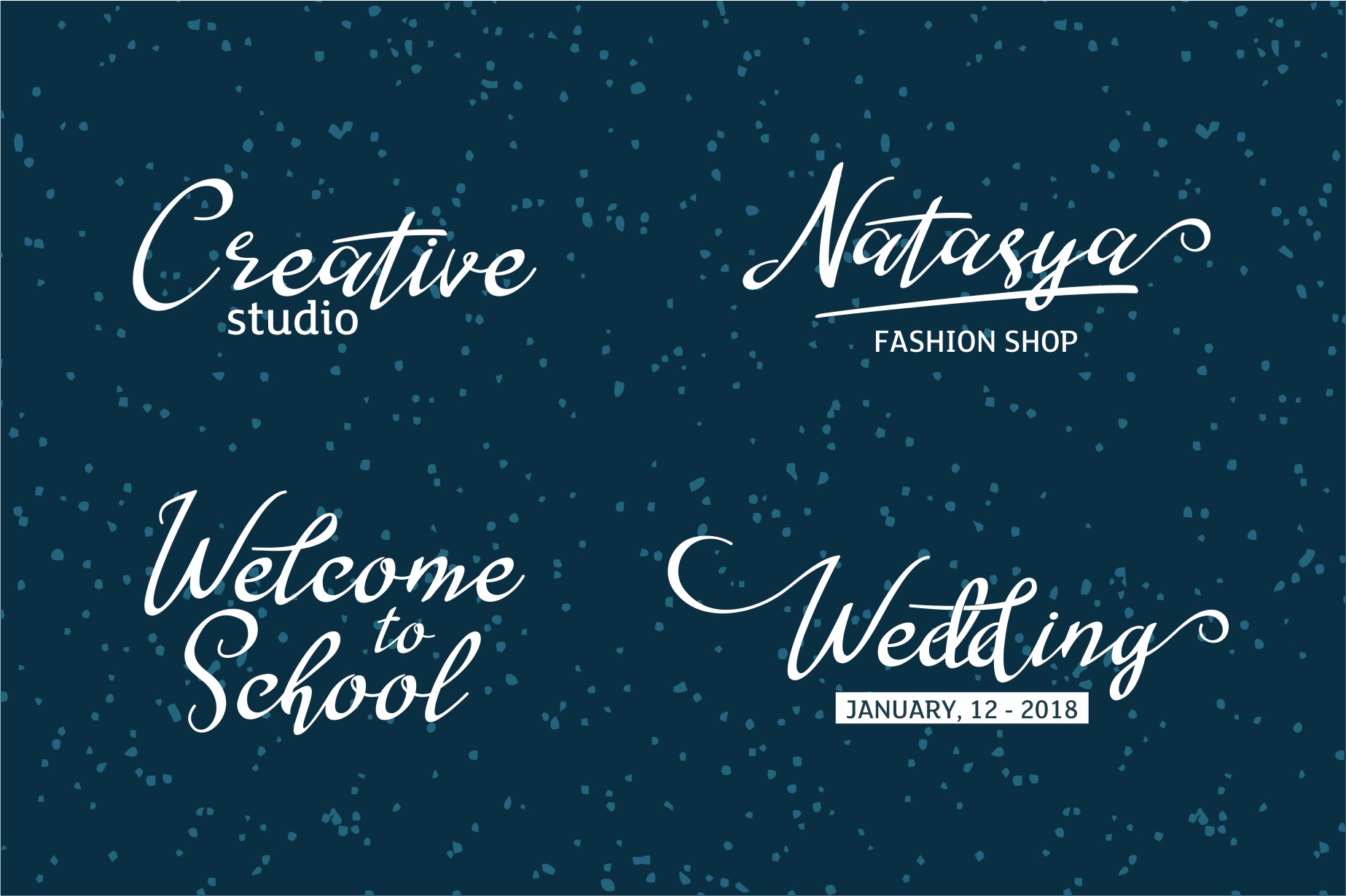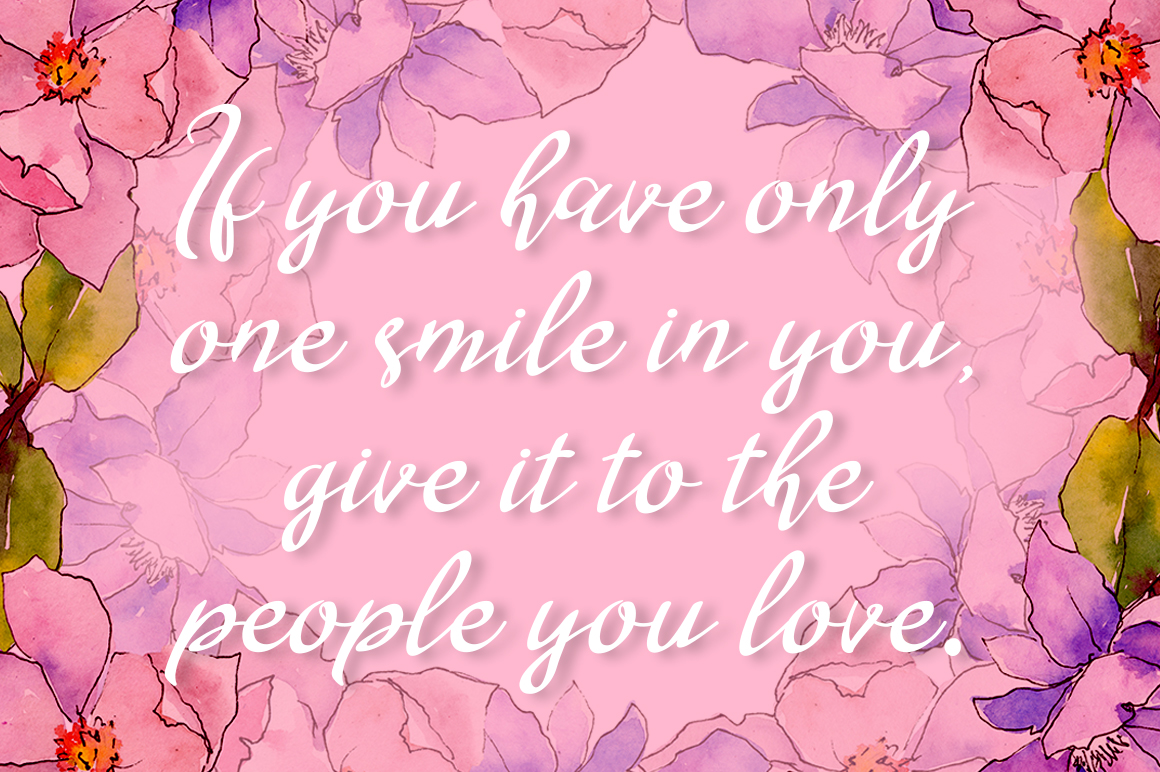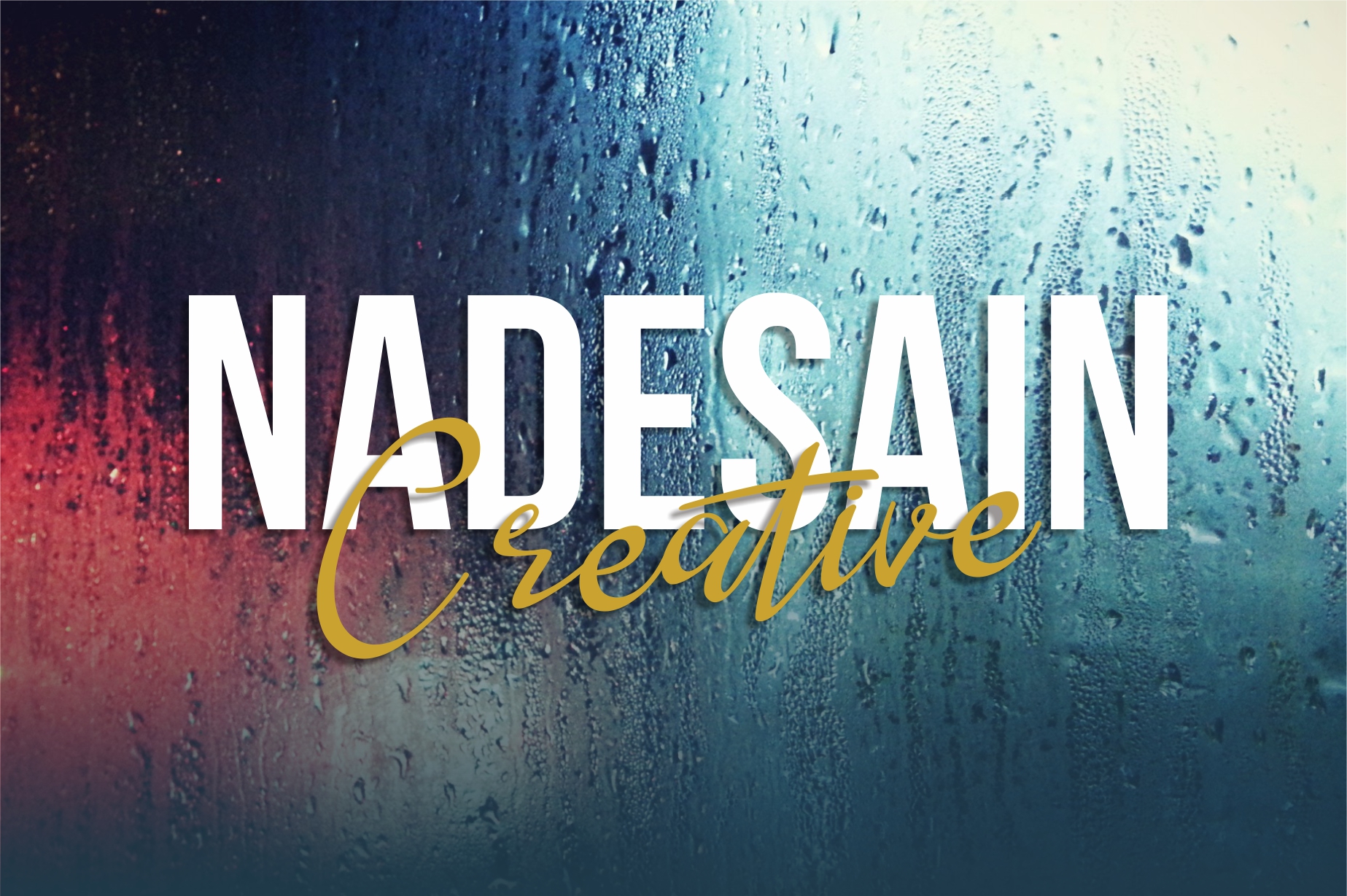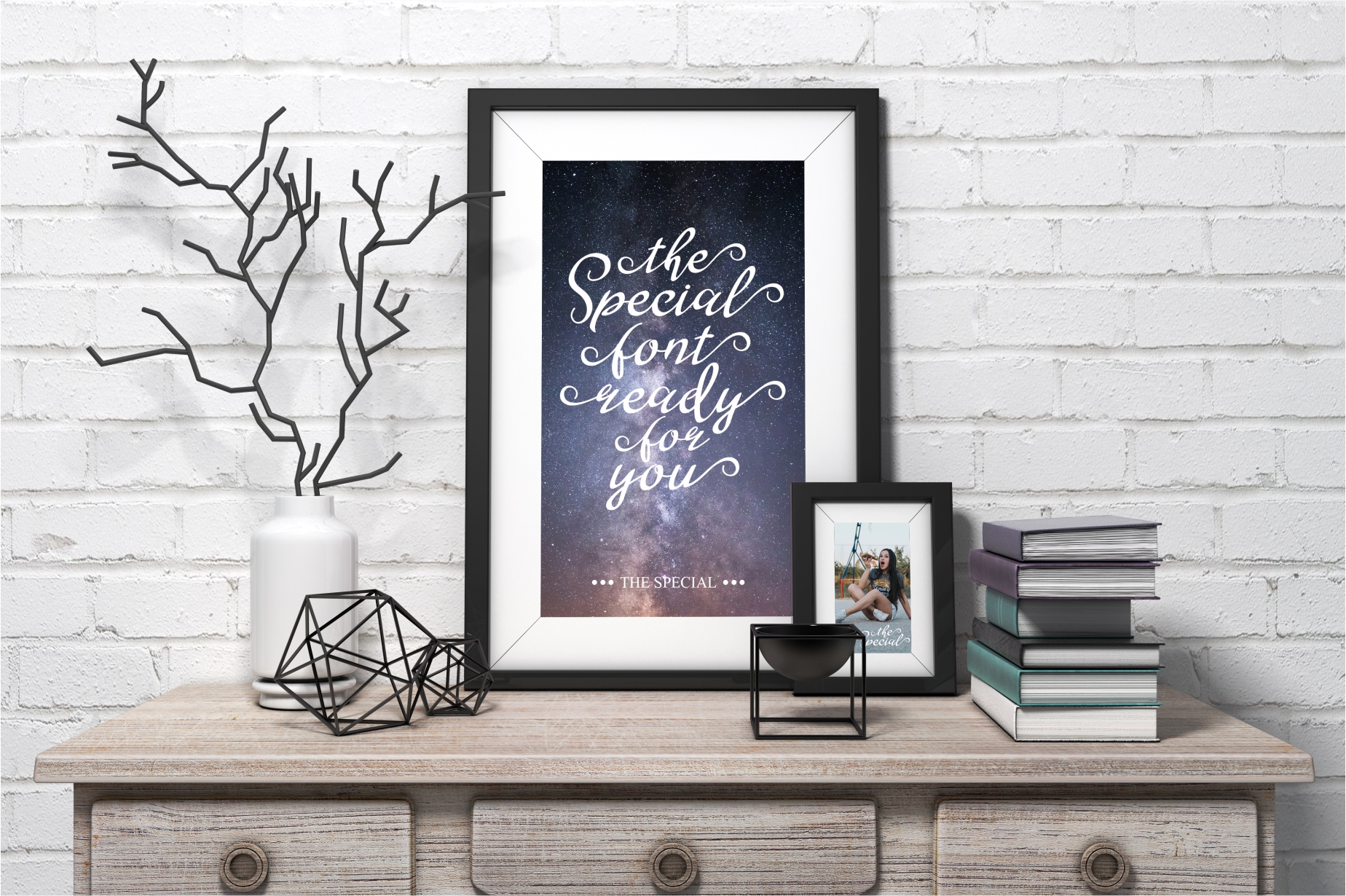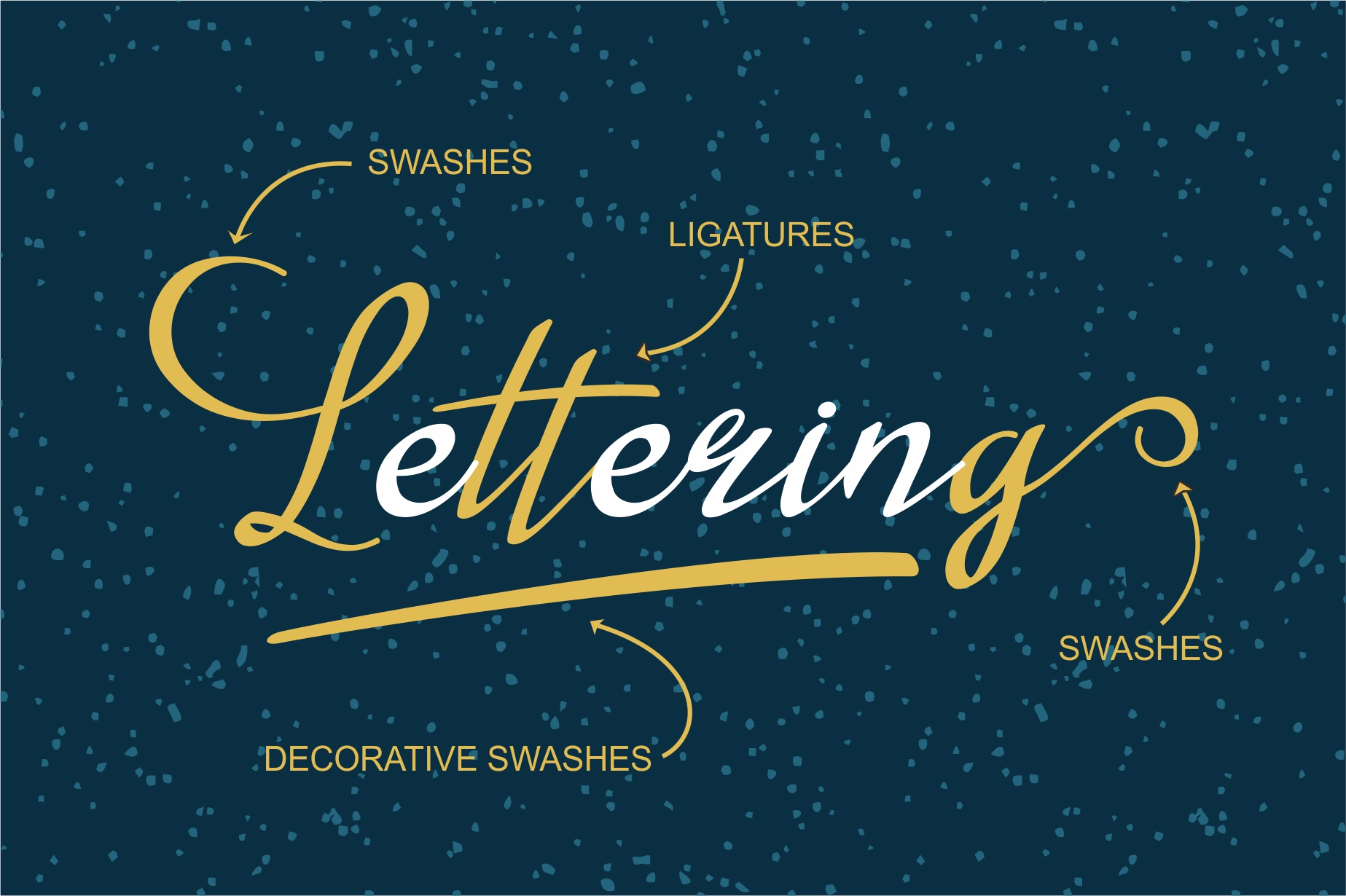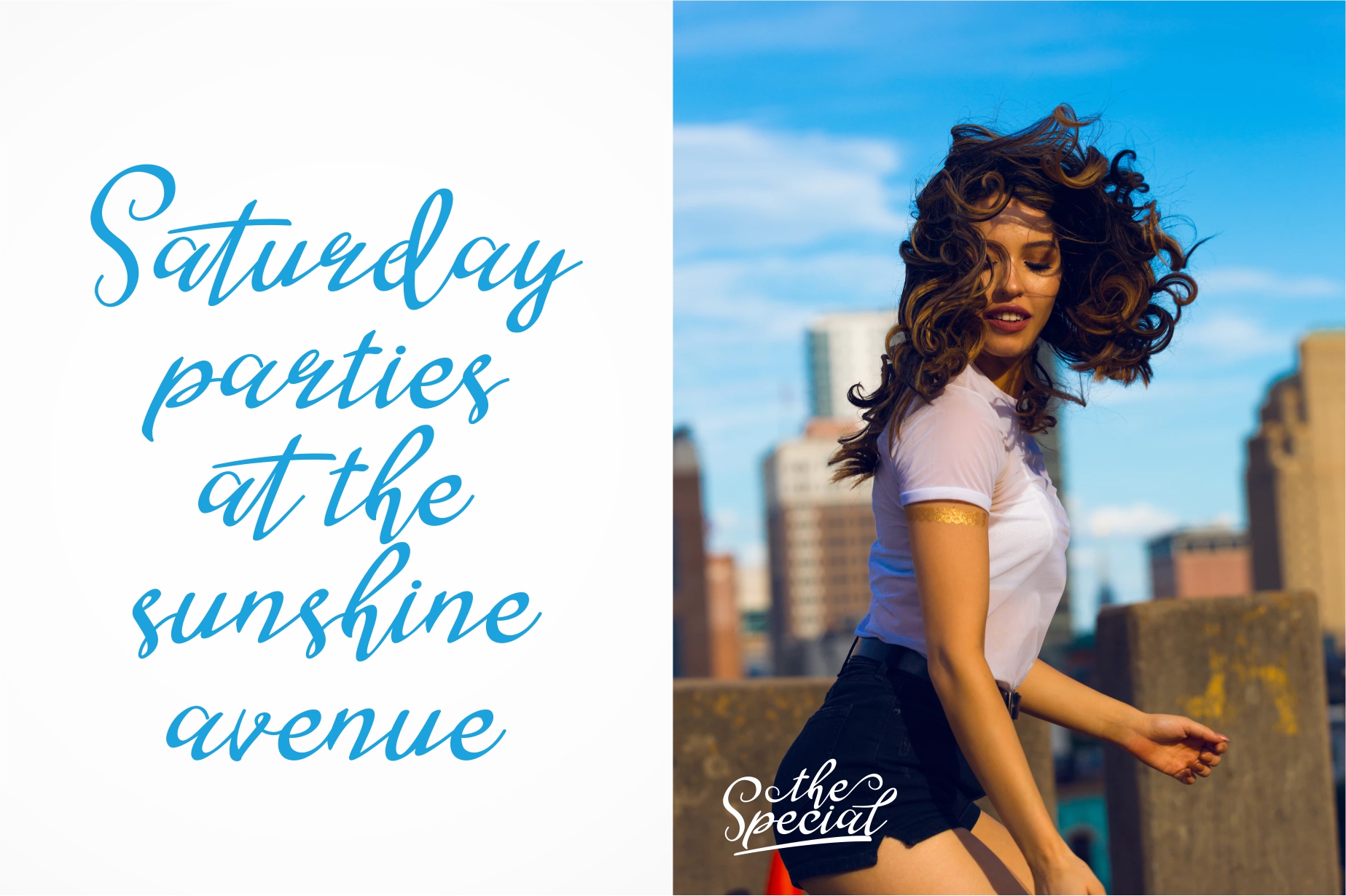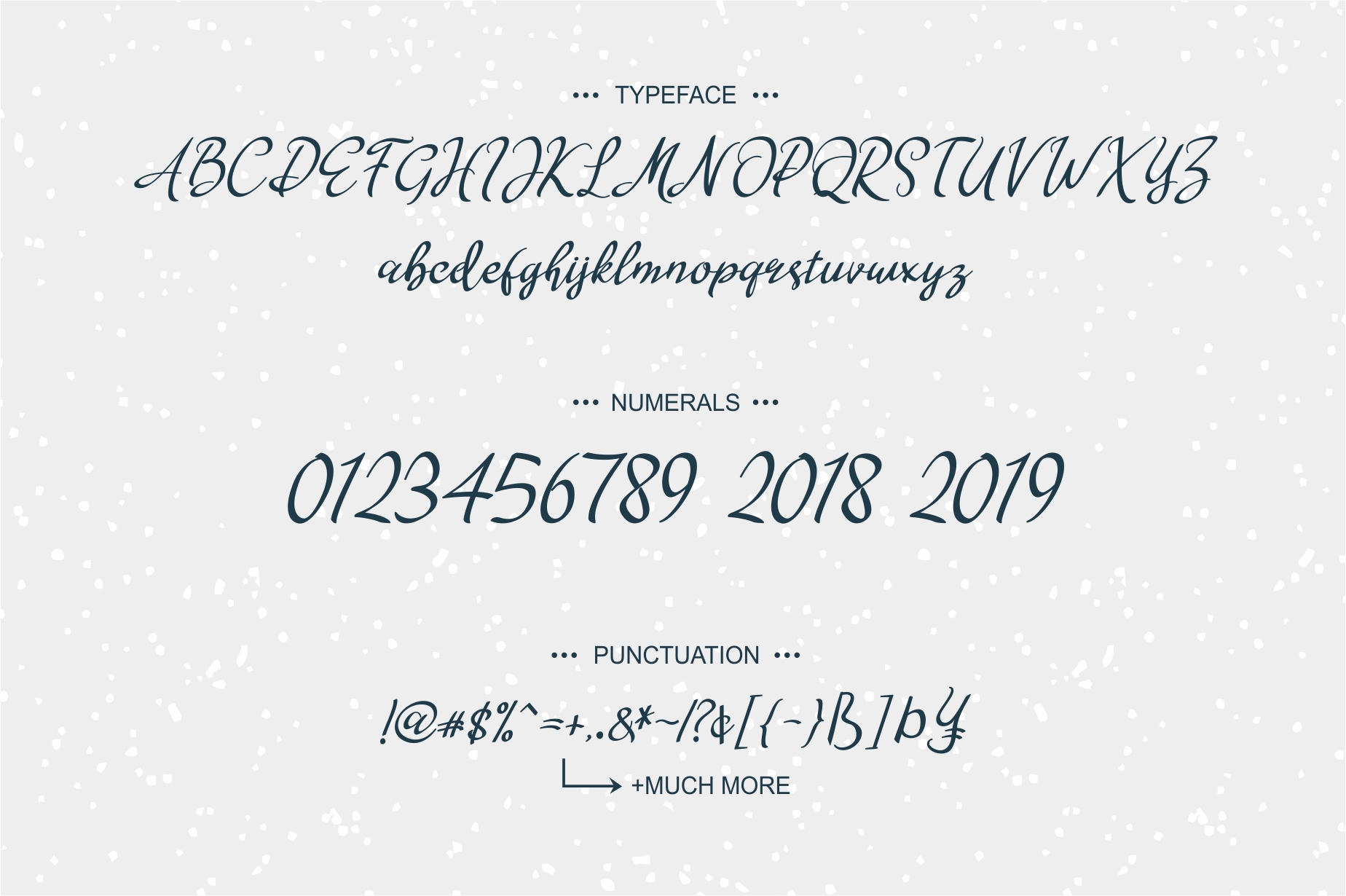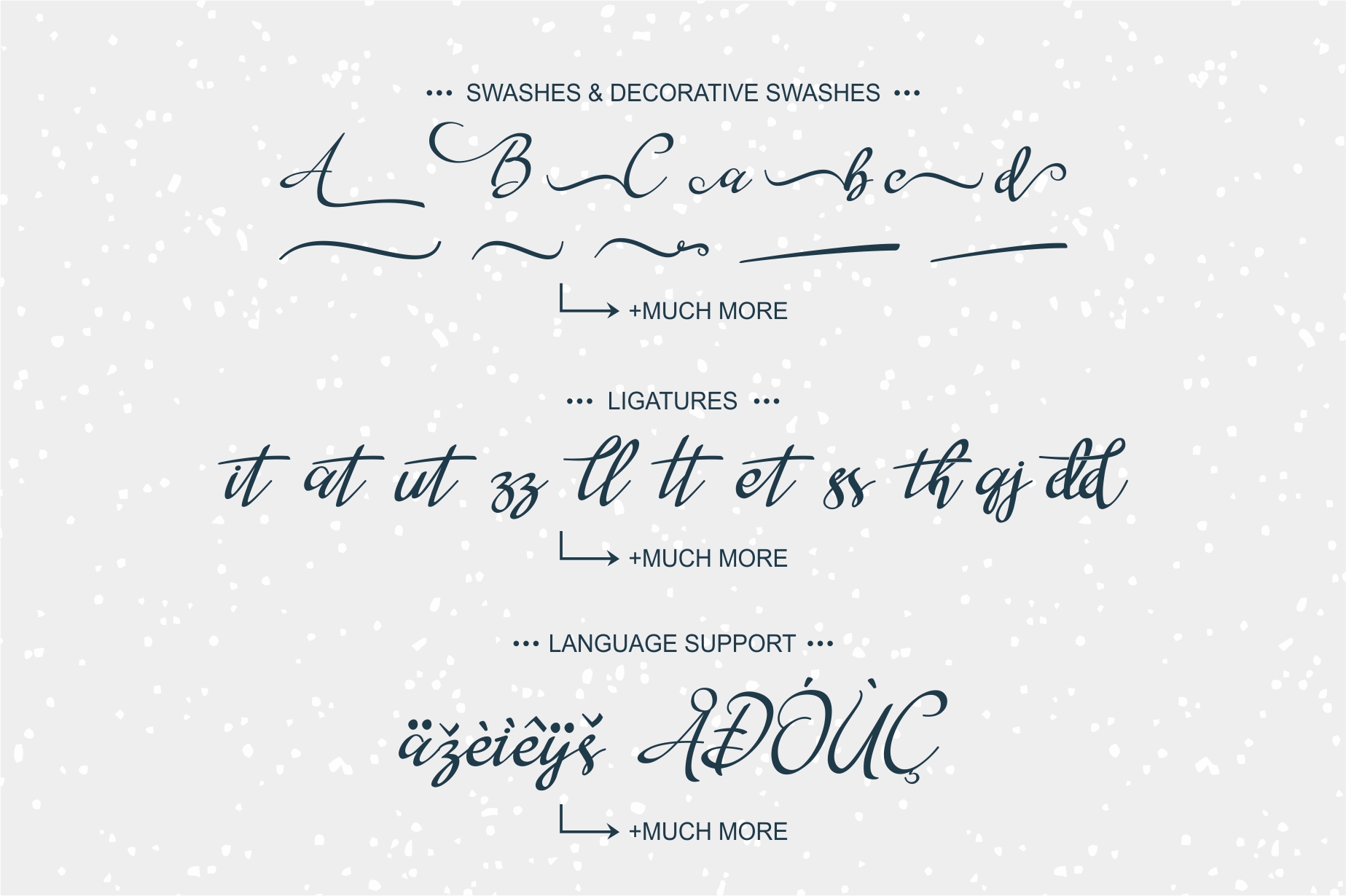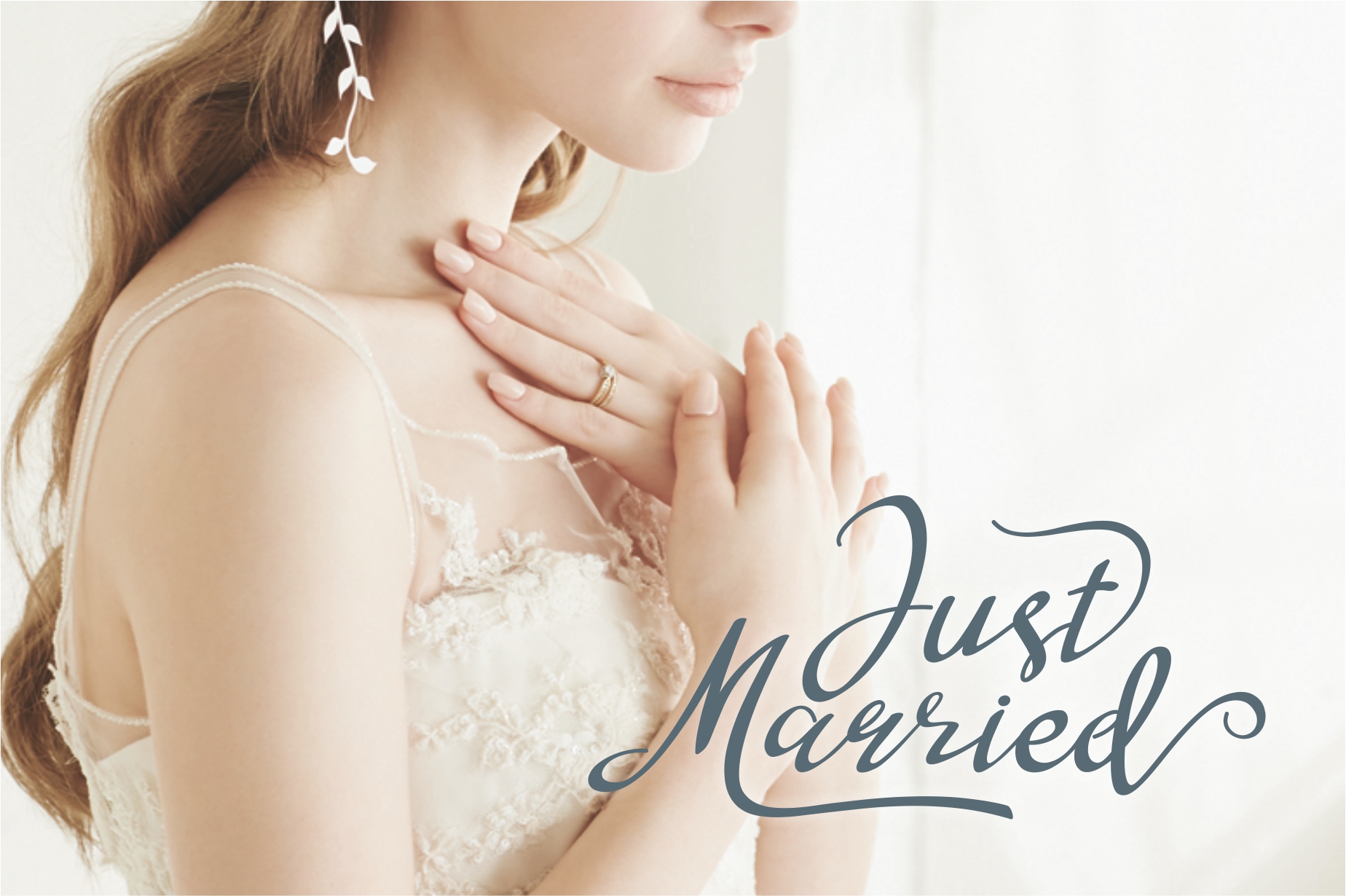
The Special Font
About The Special Font
“The Special” is a handwritten script font with a variety of basics, designed to convey elegance and style. It’s smooth, clean and feminine. All your designs will have a beautiful homemade touch with “The Special.”